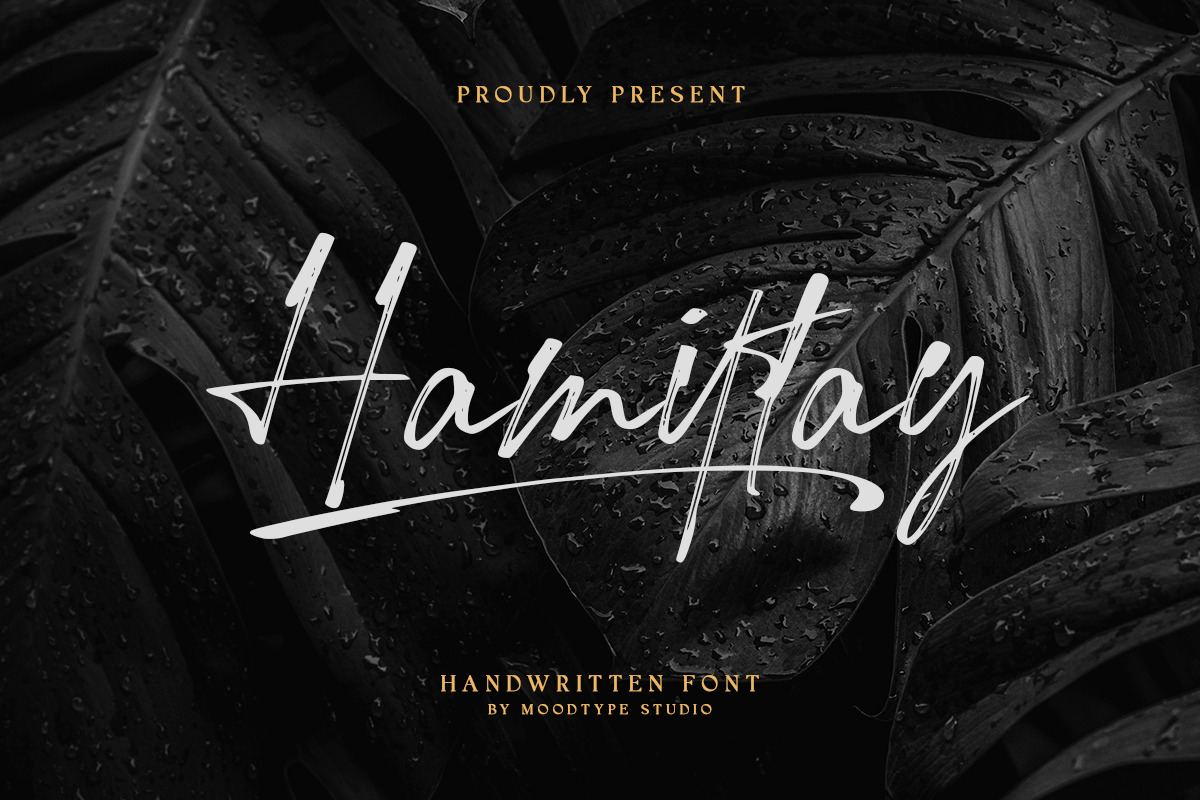
Hamiltay Handwritting Font
Hamiltay is a brush handwritten font that suitable for branding, Fashion, Wadding, Food Promo, invitation, packaging, merchandise, website, advertisement, magazine, logo, and more. You will get full set of lowercase and uppercase letters, numerals and punctuation, multilingual symbols, ligatures and extra swashes.
Font has :
Ligatures Swashes Multilingual Support